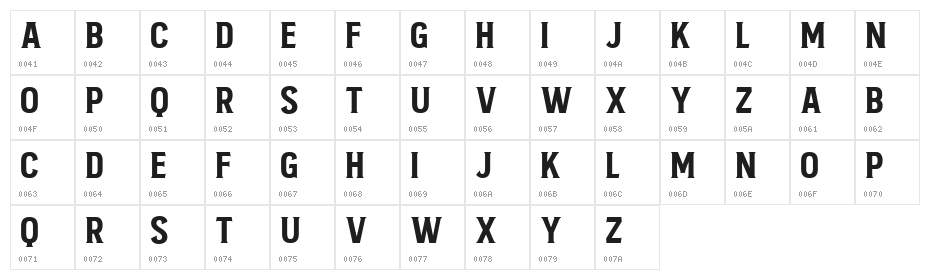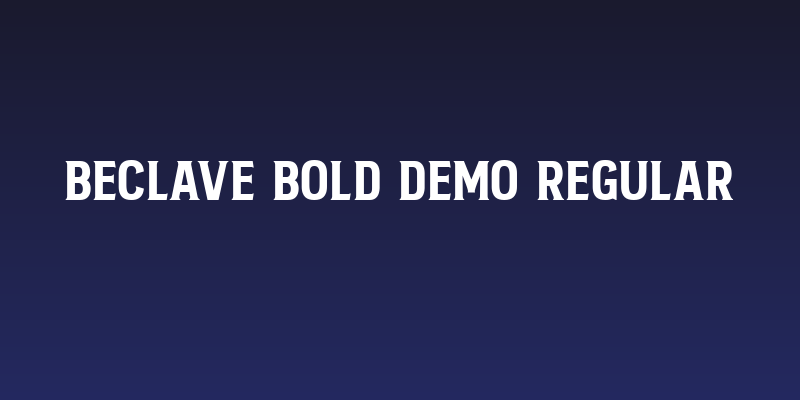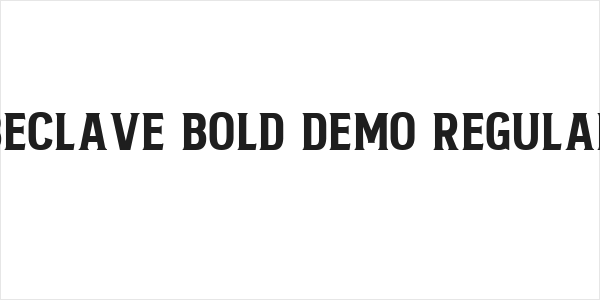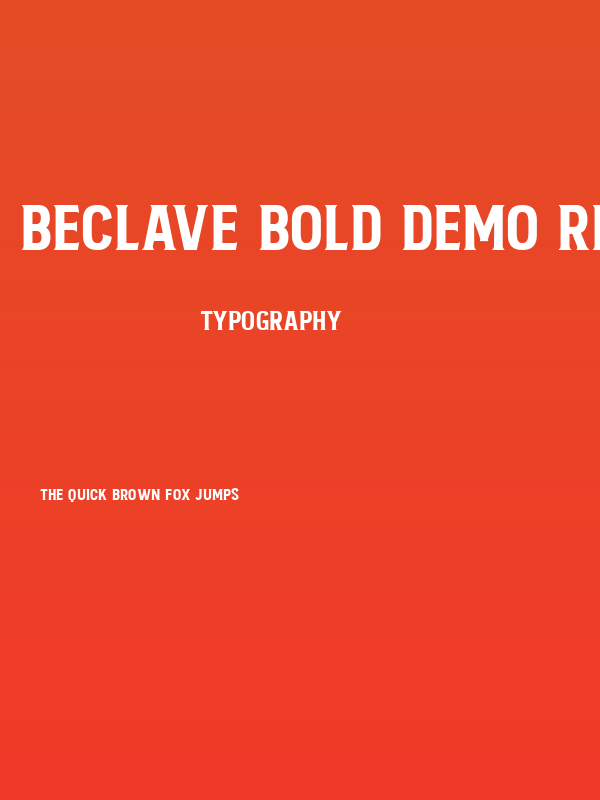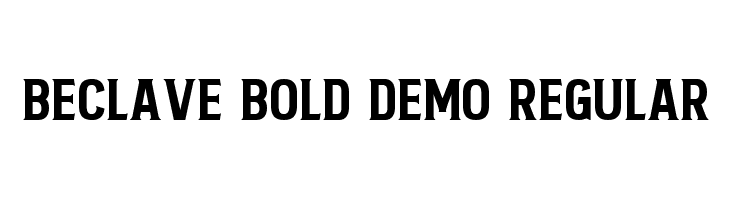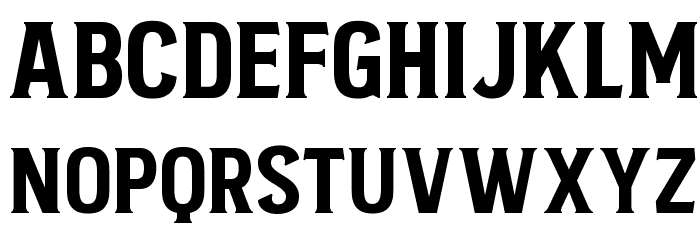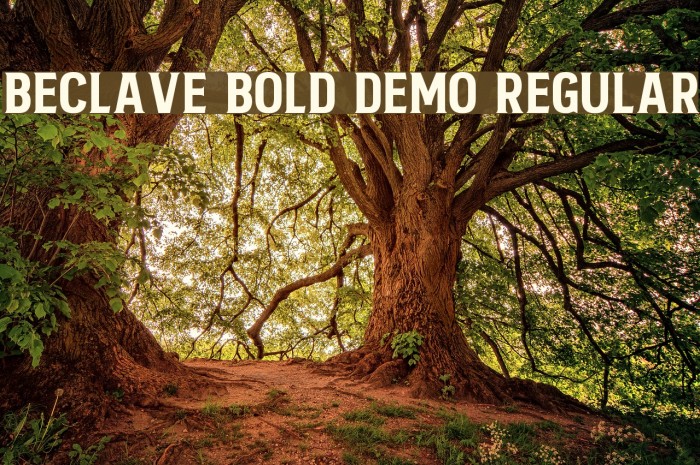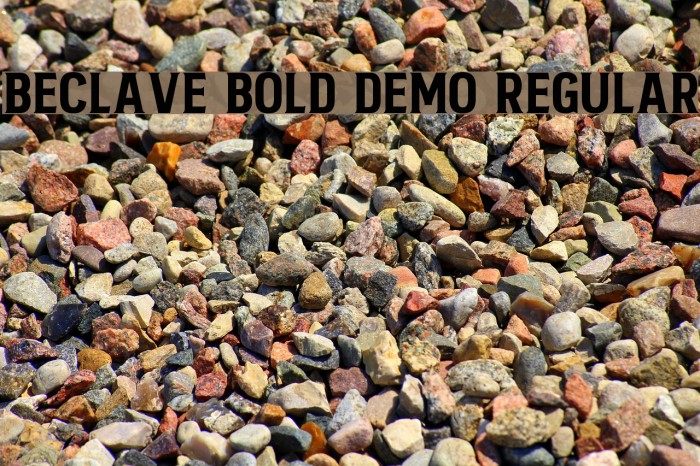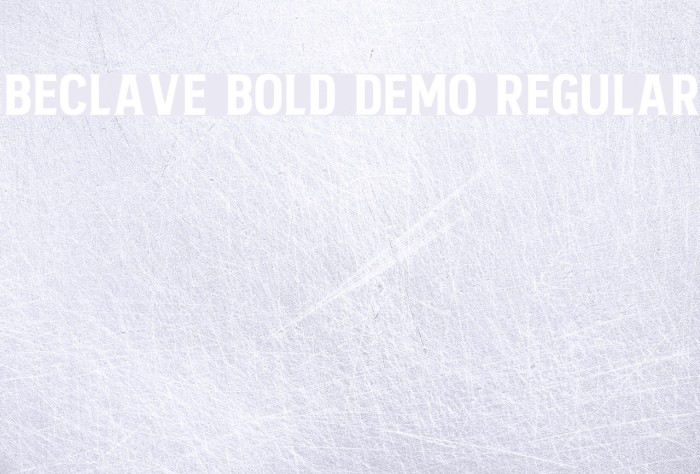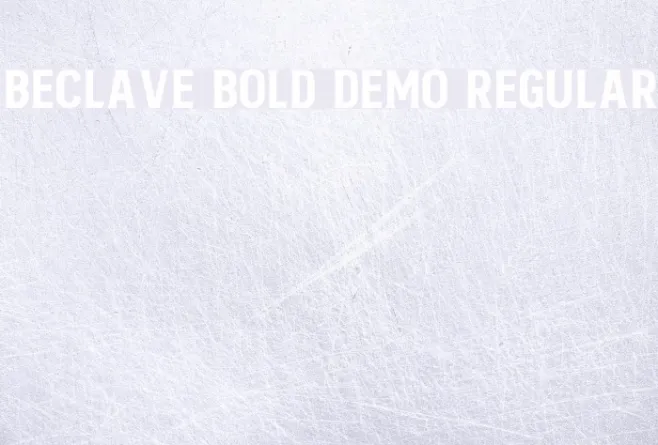
Beclave Bold DEMO Regular Font
Beclave Bold DEMO Regular Description
This font features a bold and assertive style with strong, thick strokes that convey a sense of power and confidence. The characters are well-defined with sharp edges and a slightly condensed appearance, making it suitable for impactful headlines and titles. The uppercase letters are particularly striking, with a uniform height and width that ensures readability. The font maintains a consistent weight throughout, providing a cohesive look across all characters. Its modern design is complemented by a touch of vintage flair, making it versatile for various design projects.
| Proposed Projects | Ideal for branding, advertising, poster design, and any project requiring a strong visual impact. |